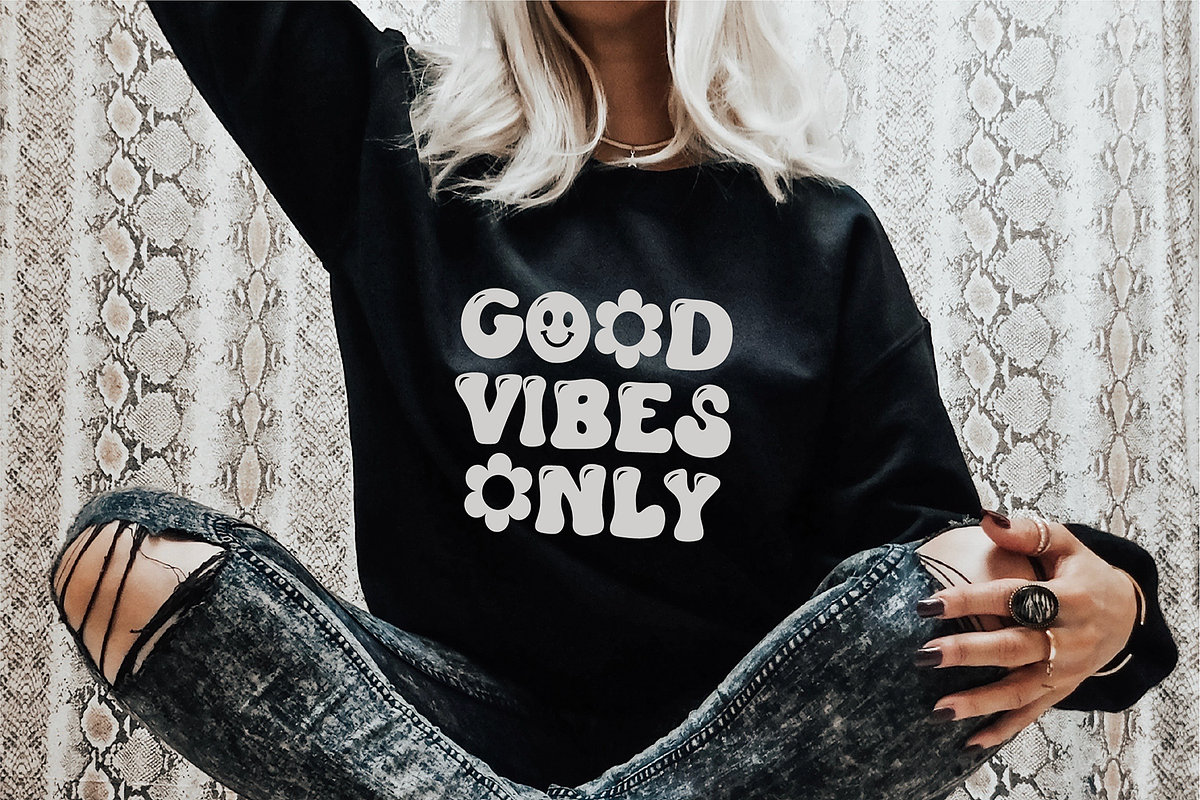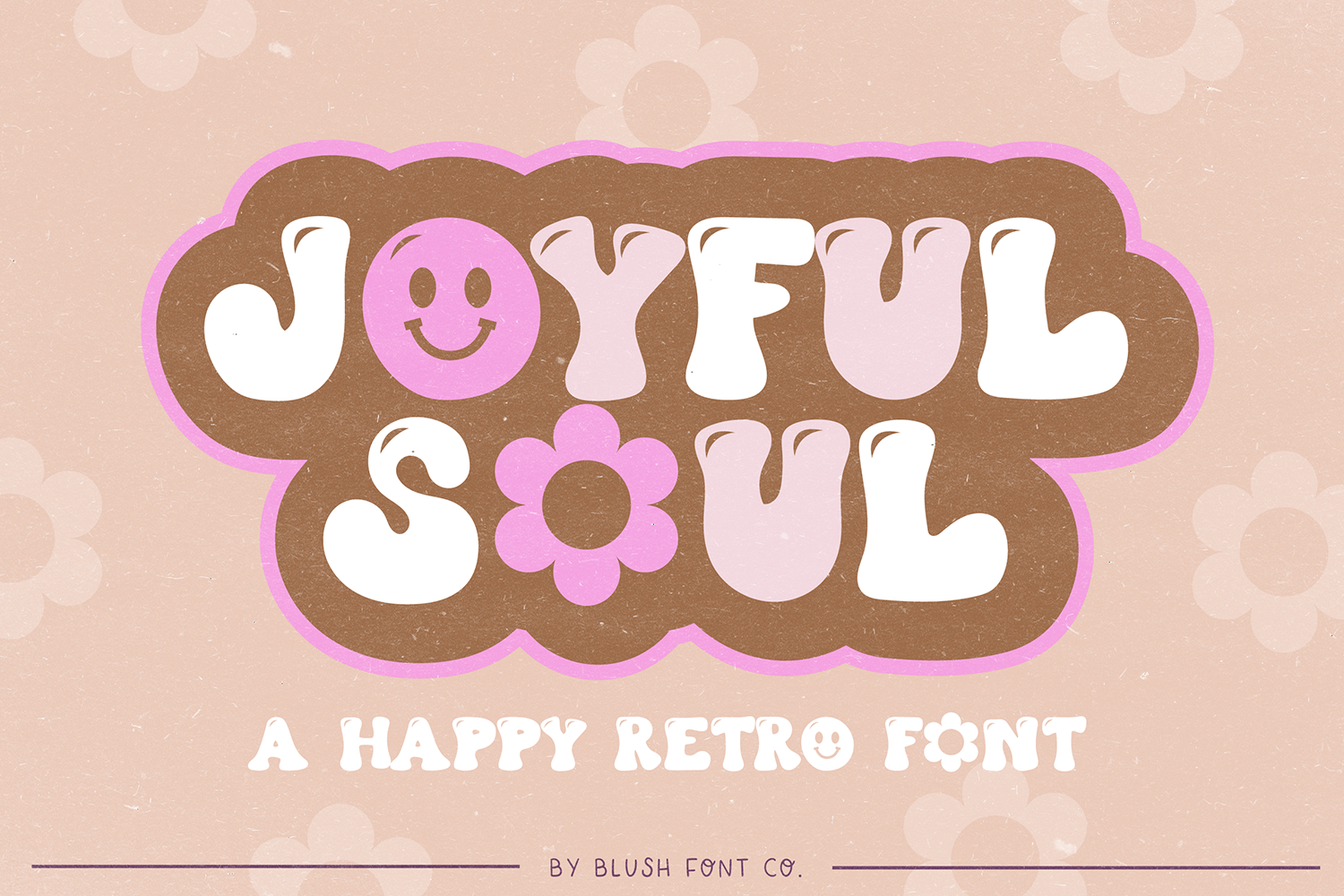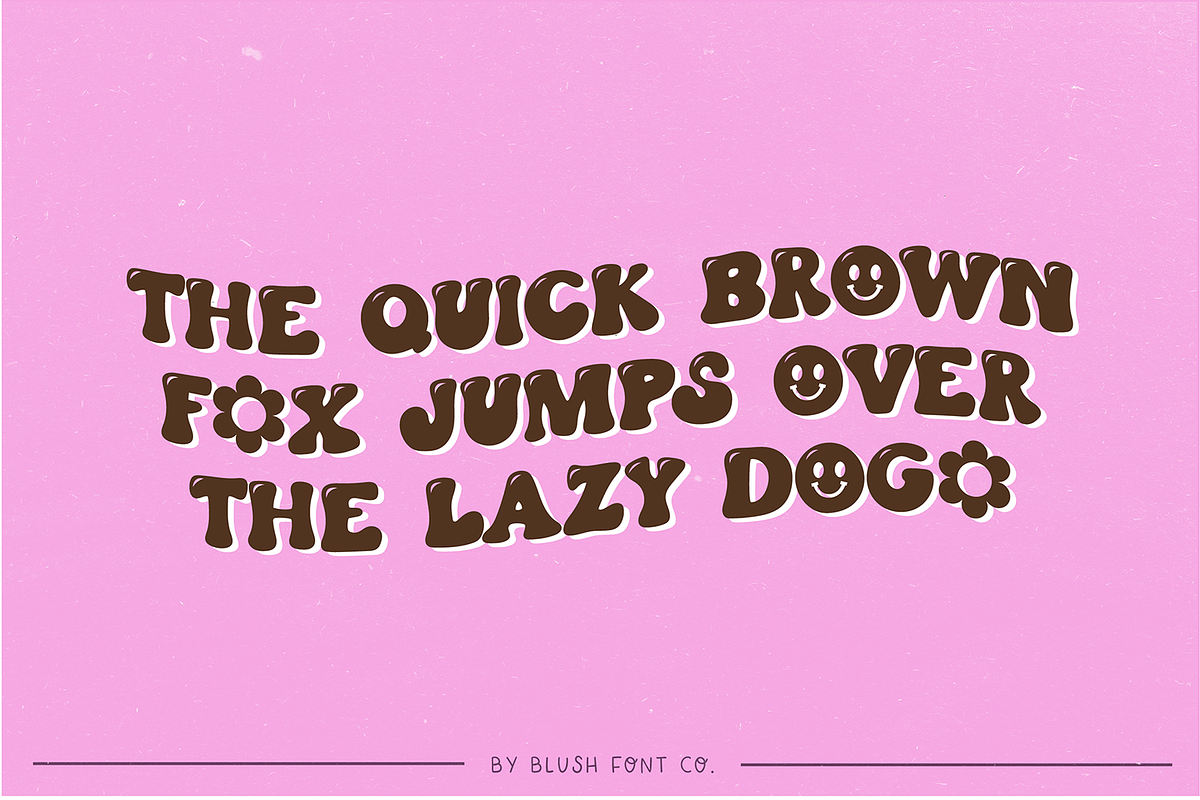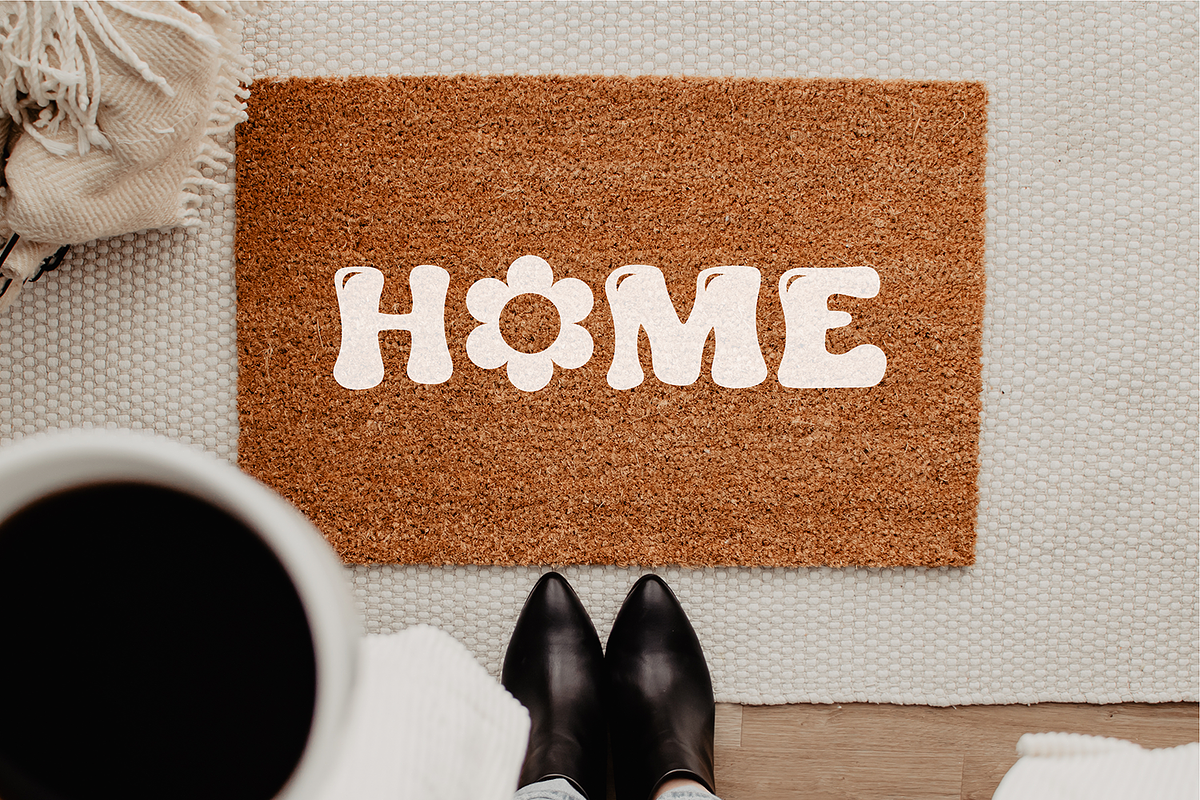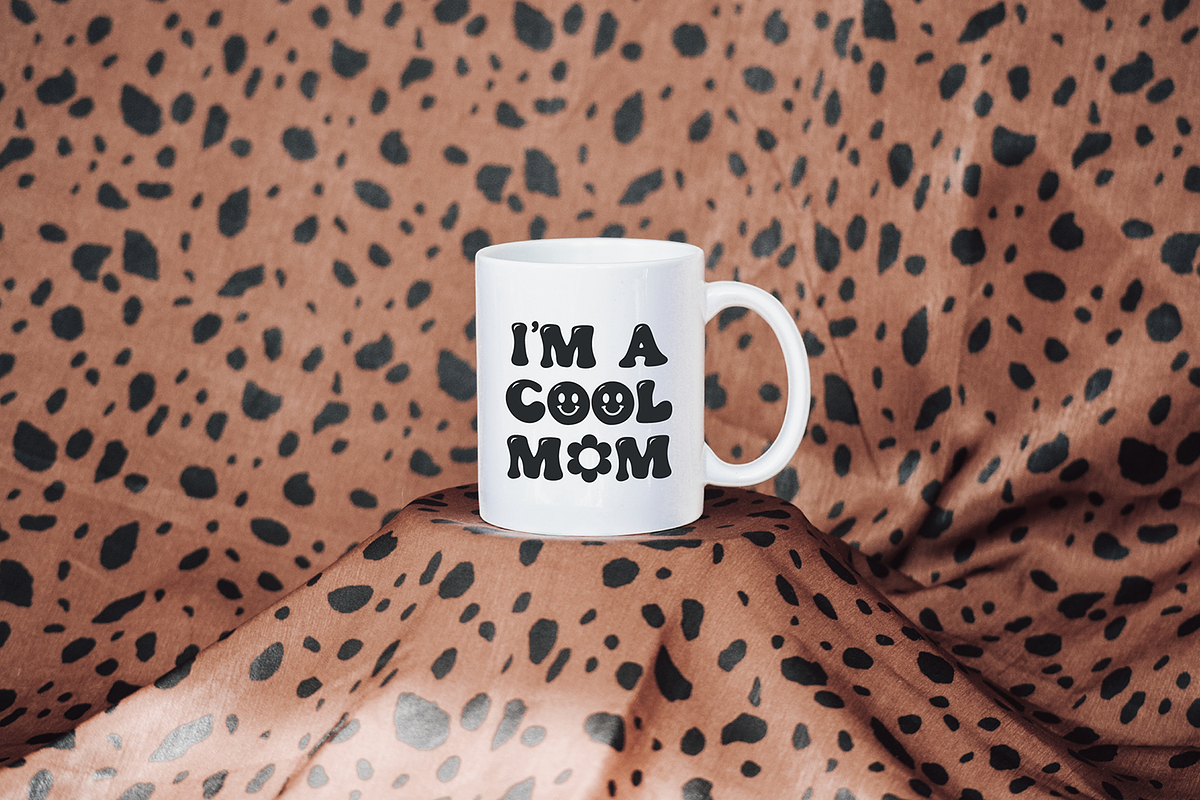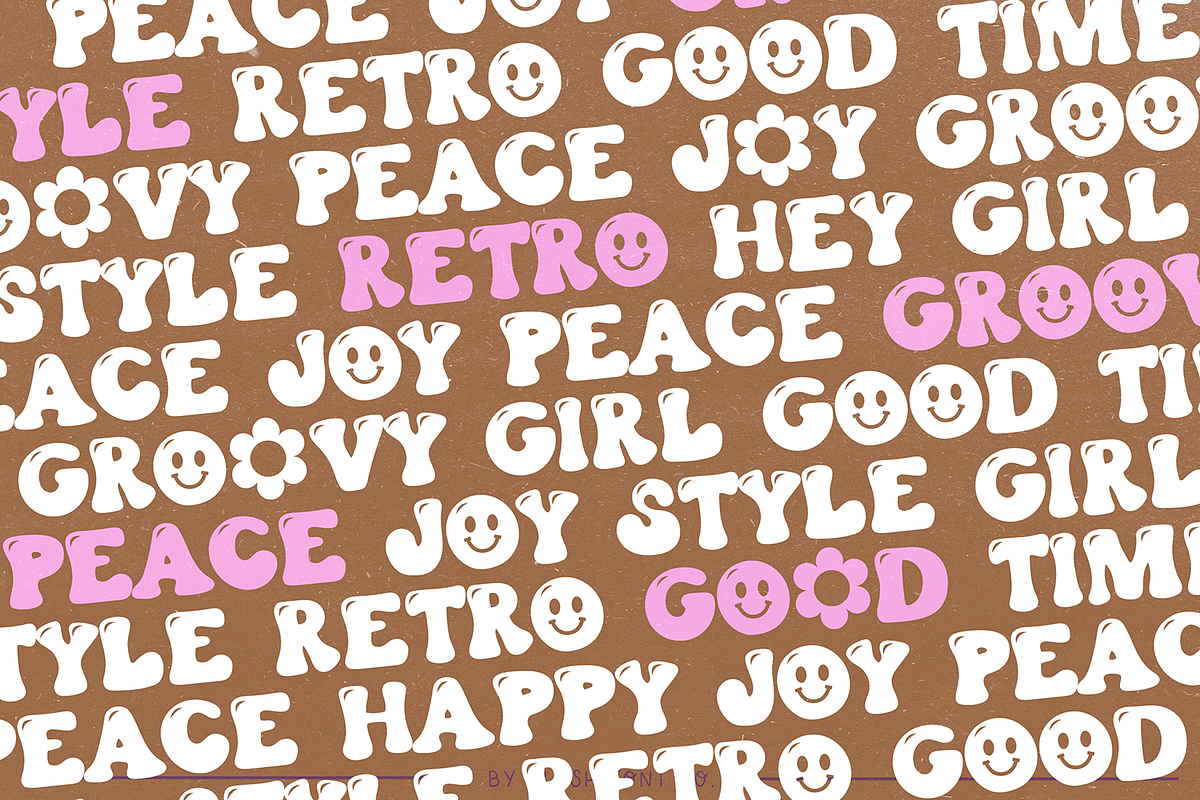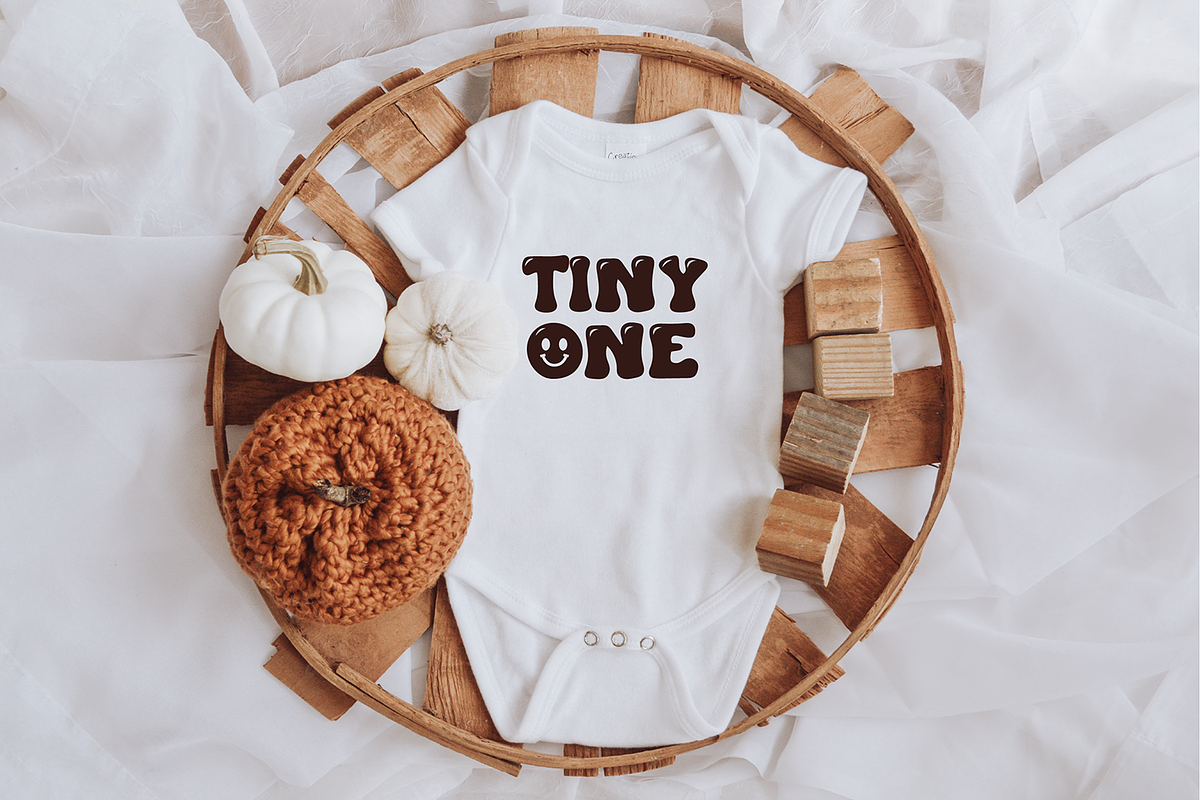
JOYFUL SOUL Happy Retro Font
"Joyful Soul" a stylish retro smile font. Find the smile face by using the lowercase "o". The flower can be found by using the "+" sign.
This font is a trendy retro display font that is perfect for social media or crafty projects. Use if for branding, crafts for decor, invitations, and more!